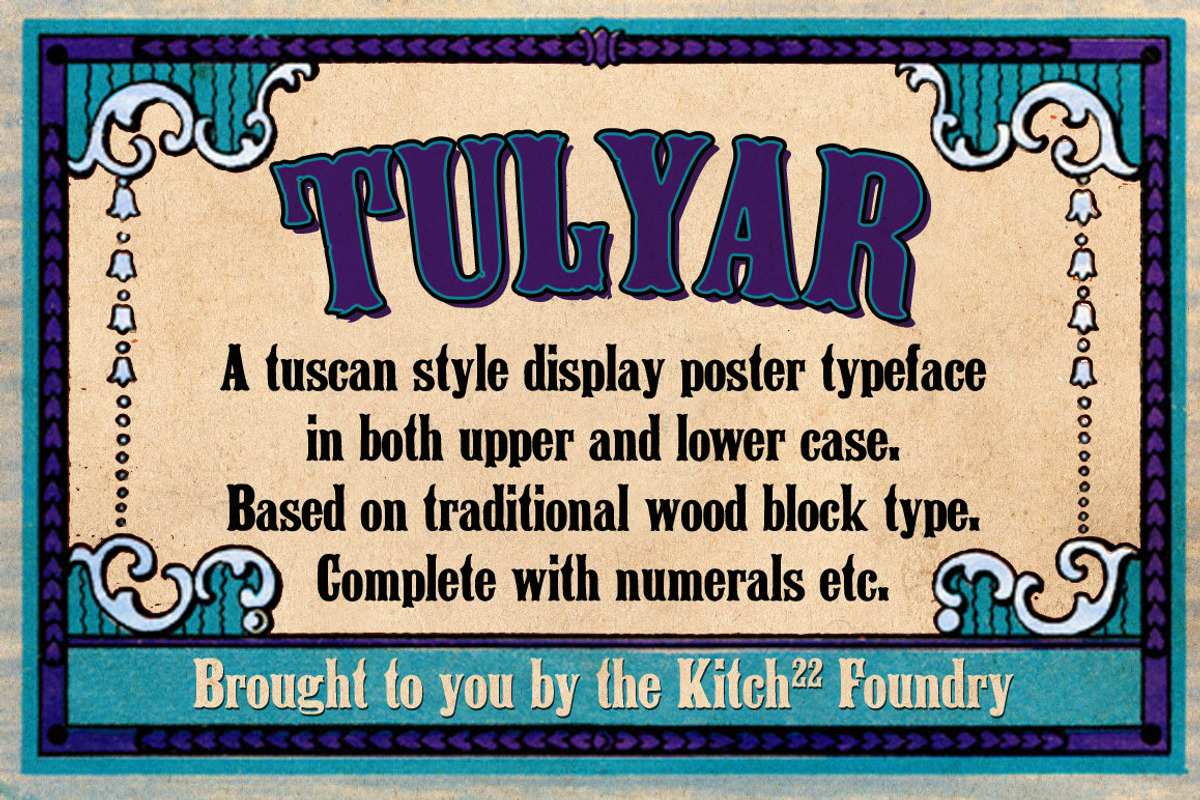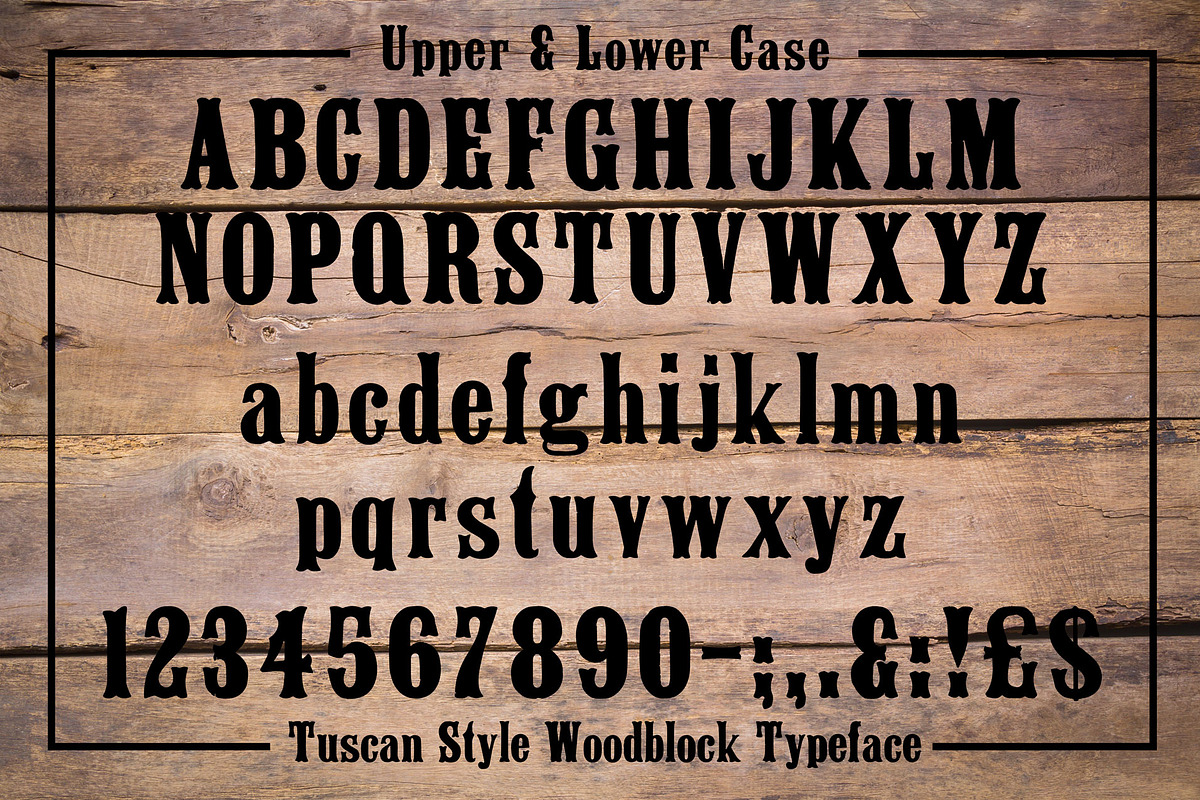
Tulyar Woodblock Font
Tulyar Woodblock Font by Kitch22 Foundry is a font selected for branding, posters, packaging, typography.
Tulyar Woodblock Font by Kitch22 Foundry fits naturally into Branding, posters, packaging, typography.